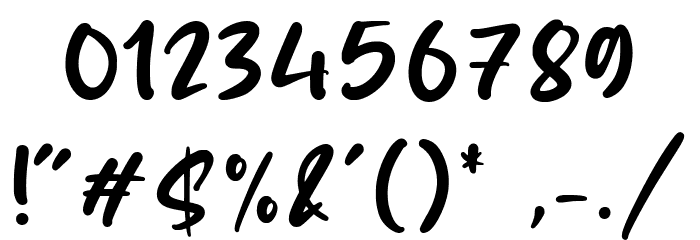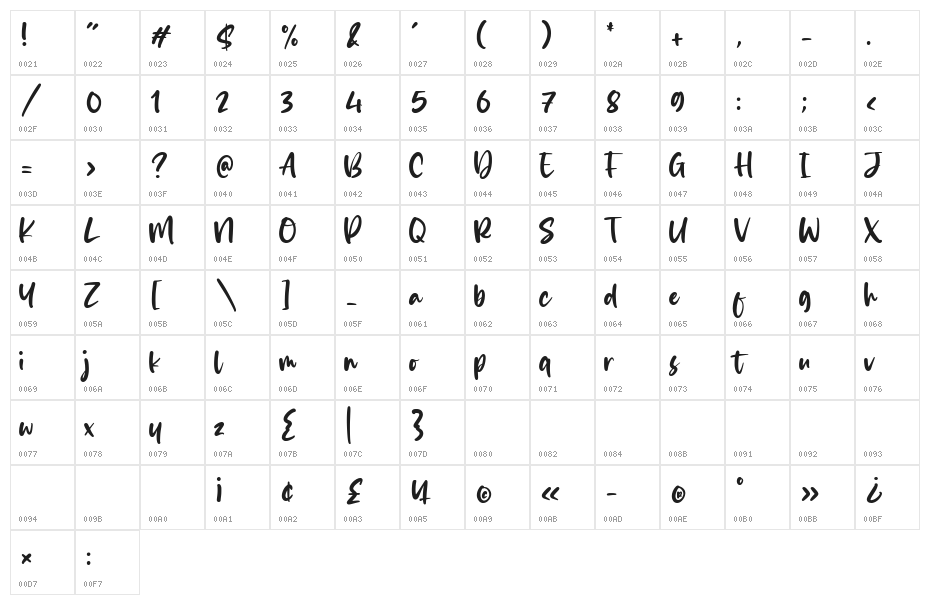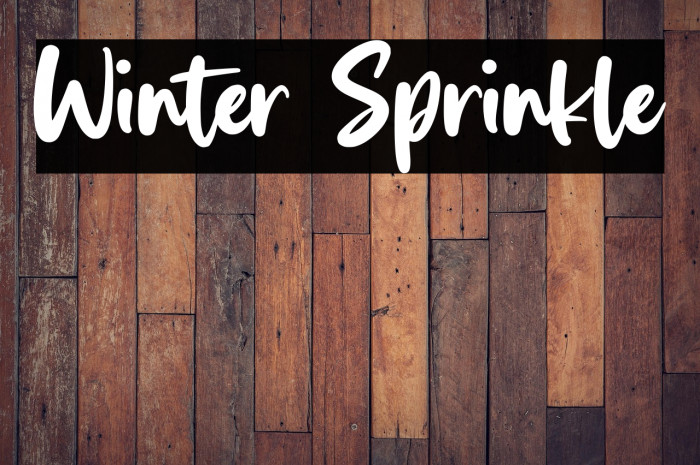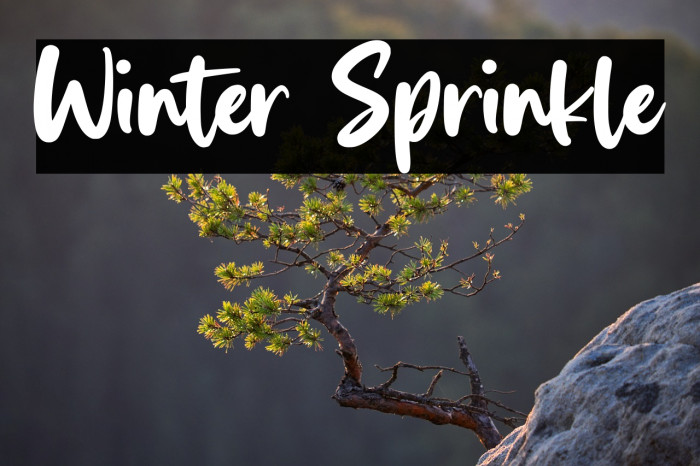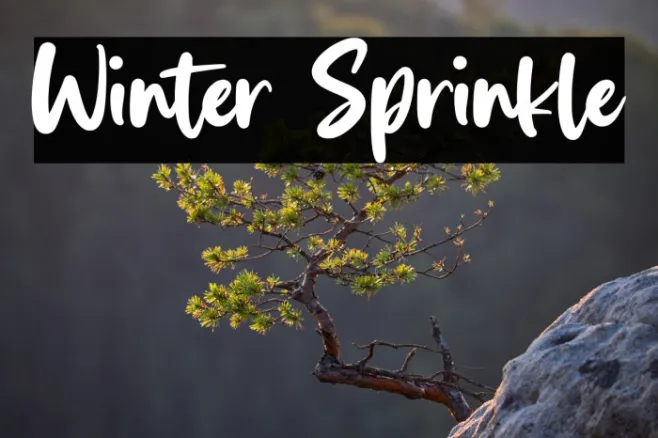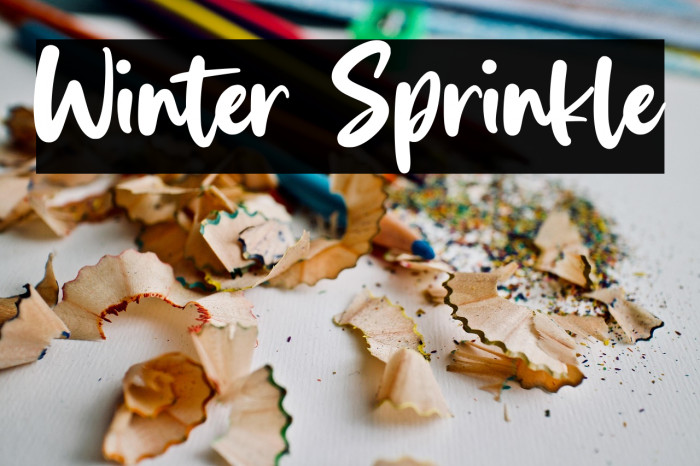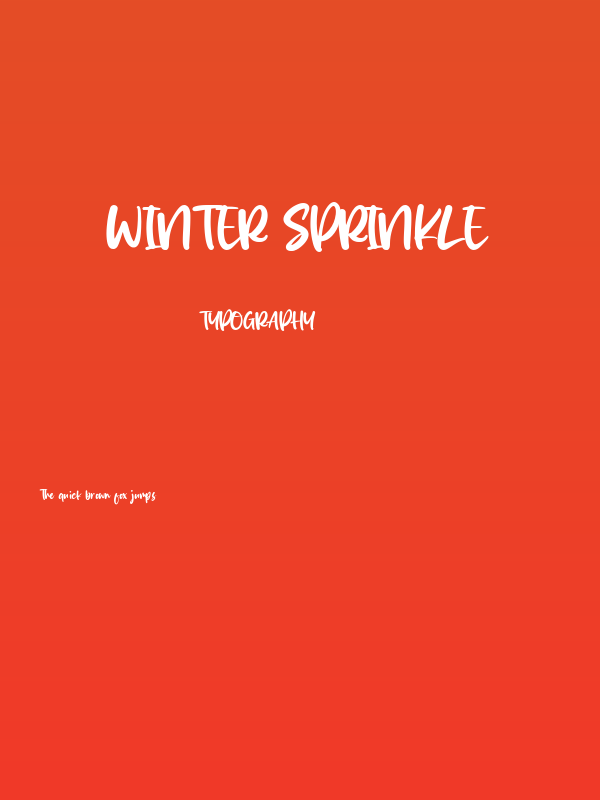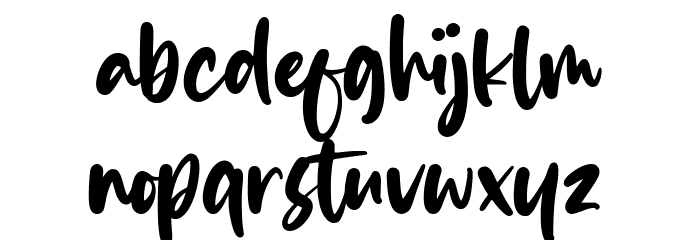
Winter Sprinkle Font
Winter Sprinkle Description
This font exudes a playful and whimsical charm, characterized by its bold and flowing script style. The letters are crafted with a smooth, hand-drawn appearance, giving it a personal and informal feel. The uppercase letters are slightly taller and more pronounced, while the lowercase letters maintain a consistent flow and rhythm. The numerals are well-integrated, matching the overall style with a touch of flair. Special characters are creatively designed, adding to the font's versatility. The strokes are thick and consistent, providing a strong visual impact.